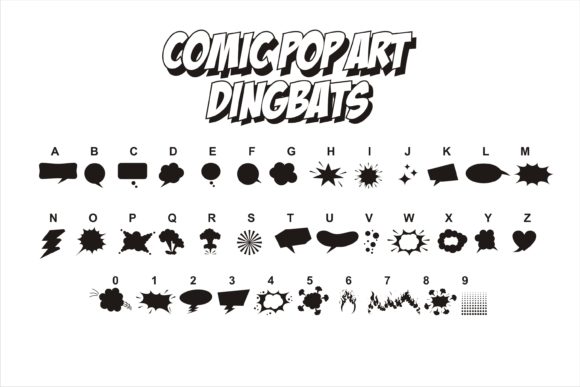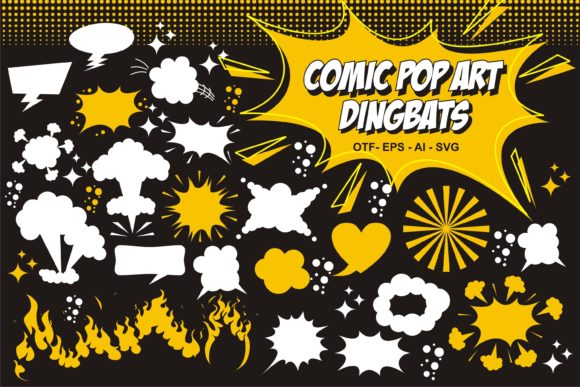
Introducing Comics Pop Art Font: The Ultimate Dingbats Font for Designers and Crafters
Are you a designer or crafter looking for a unique and versatile font to elevate your creative projects? Look no further than Comics Pop Art Font, a cool and useful dingbats font that’s sure to become a valuable asset in your font library. With its wide range of applications and ease of use, this font is perfect for anyone looking to add a touch of personality and style to their work.
What is Comics Pop Art Font?
Comics Pop Art Font is a dingbats font that features a collection of fun and quirky illustrations, including comic book-style images, pop art-inspired graphics, and other cool designs. This font is perfect for designers and crafters who want to add a bit of whimsy and humor to their projects, from posters and flyers to social media graphics and craft projects.
Why You’ll Love Comics Pop Art Font
So why should you consider adding Comics Pop Art Font to your font library? Here are just a few reasons why this font is a must-have for designers and crafters:
• Versatility: Comics Pop Art Font can be used for a wide range of projects, from graphic design and illustration to crafting and DIY projects. Whether you’re creating a poster, a social media graphic, or a handmade card, this font is sure to add a touch of personality and style.
• High-quality design: Comics Pop Art Font features high-quality illustrations that are sure to impress. With its bold lines and bright colors, this font is perfect for creating eye-catching graphics and designs.
• Unique style: This font has a unique and distinctive style that’s sure to set your projects apart from the crowd. Whether you’re looking for a fun and playful font or a bold and edgy one, Comics Pop Art Font is a great choice.
• Customize your design: With Comics Pop Art Font, you can customize your design by adjusting the size, color, and other attributes of the illustrations. You can also combine the illustrations with text and other design elements to create a unique and eye-catching graphic.
Ideas for Using Comics Pop Art Font
Comics Pop Art Font is a versatile font that can be used for a wide range of projects. Here are a few ideas to get you started:
• Graphic design: Use Comics Pop Art Font to create eye-catching posters, flyers, and brochures. You can also use the font to create social media graphics and other online content.
• Crafting: This font is perfect for crafters who want to add a personal touch to their projects. Use Comics Pop Art Font to create handmade cards, gift tags, and other paper crafts.
• Illustration: Comics Pop Art Font features a wide range of illustrations that can be used for illustration projects. You can use the font to create standalone illustrations or combine the illustrations with text and other design elements.
Comics Pop Art Font is a cool and useful dingbats font that’s sure to become a valuable asset in your font library. With its wide range of applications, ease of use, and high-quality design, this font is perfect for designers and crafters who want to add a touch of personality and style to their projects. Whether you’re creating a poster, a social media graphic, or a handmade card, Comics Pop Art Font is a great choice. So why wait? Download Comics Pop Art Font today and start creating!